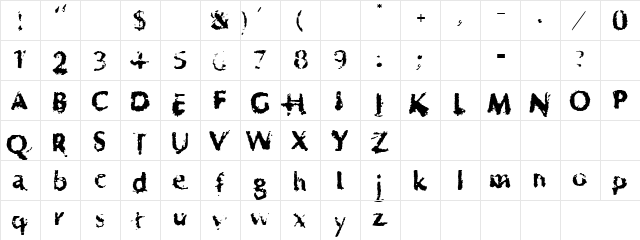
Distorted Regular
Design Context for Distorted Typeface
Distorted is a composed and adaptable typeface that performs quietly and consistently across a wide range of design contexts.